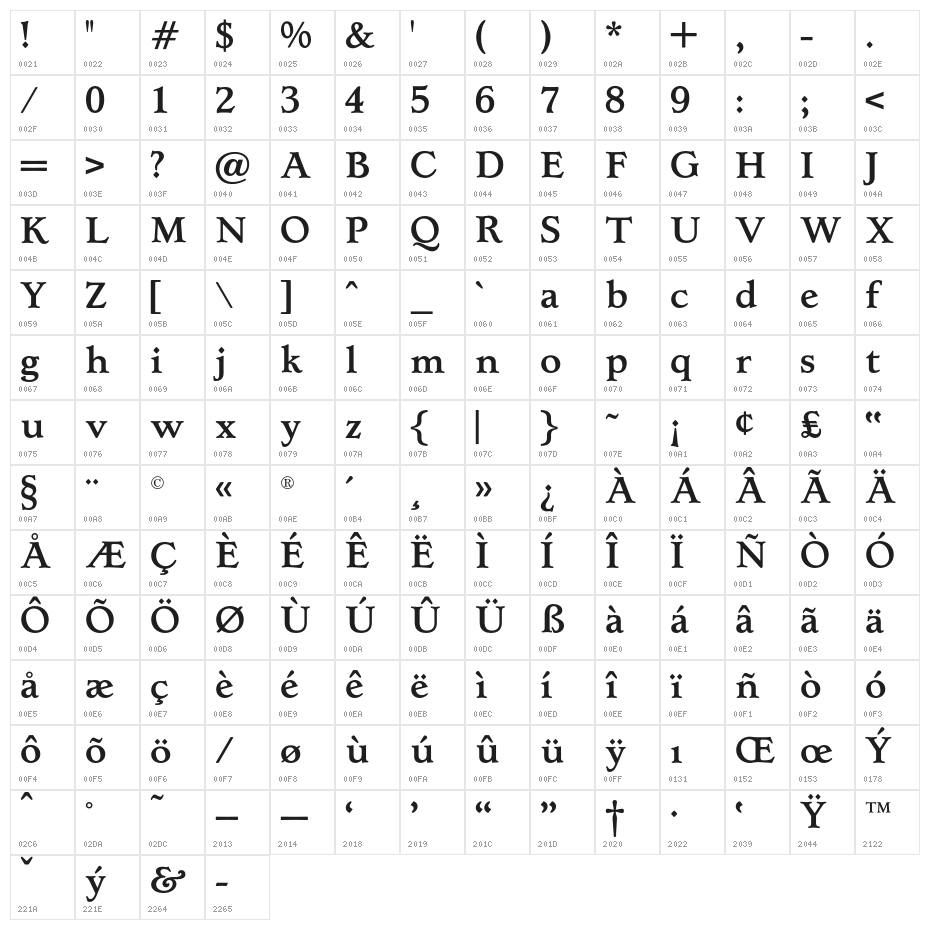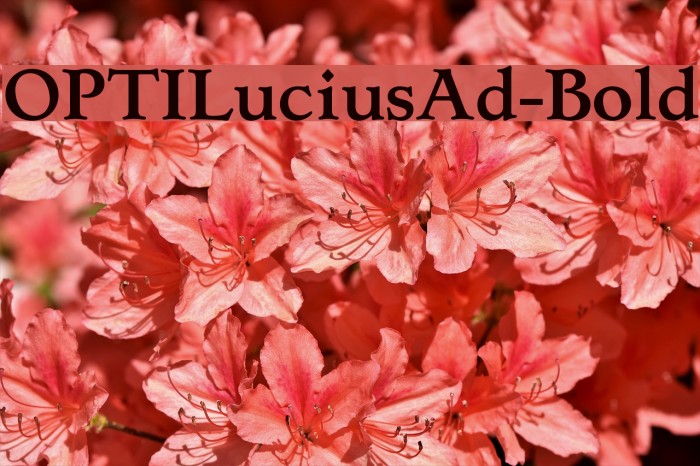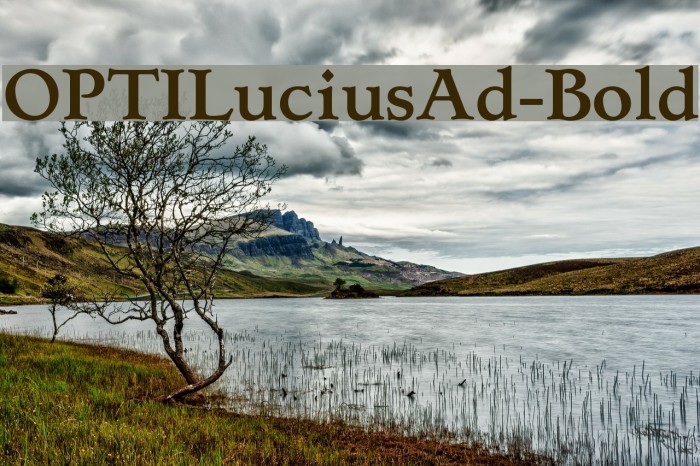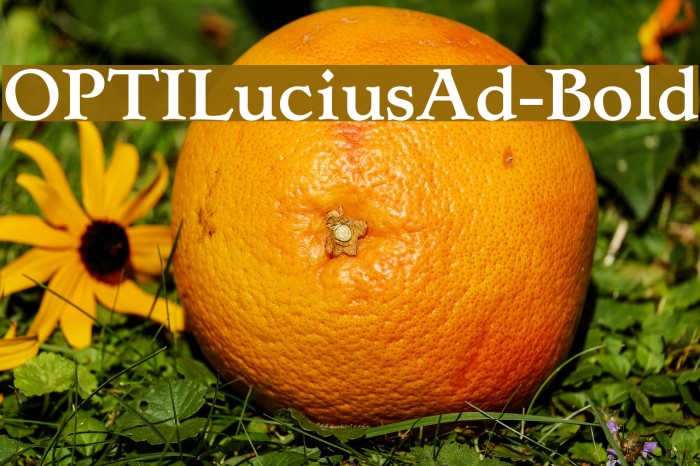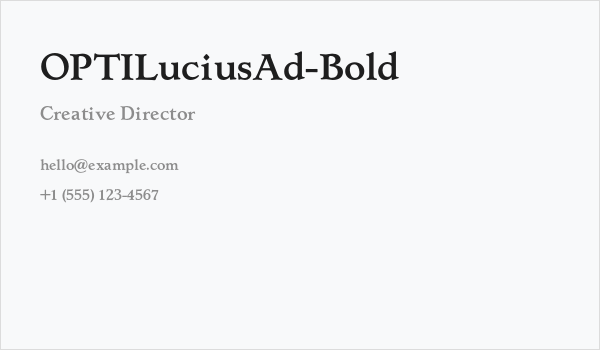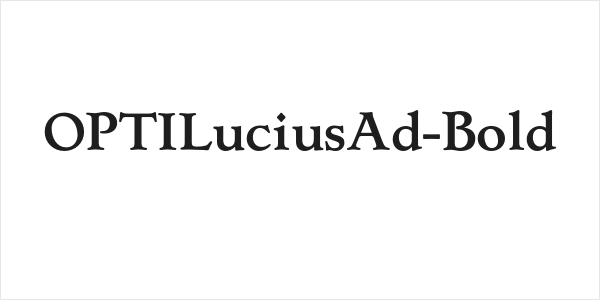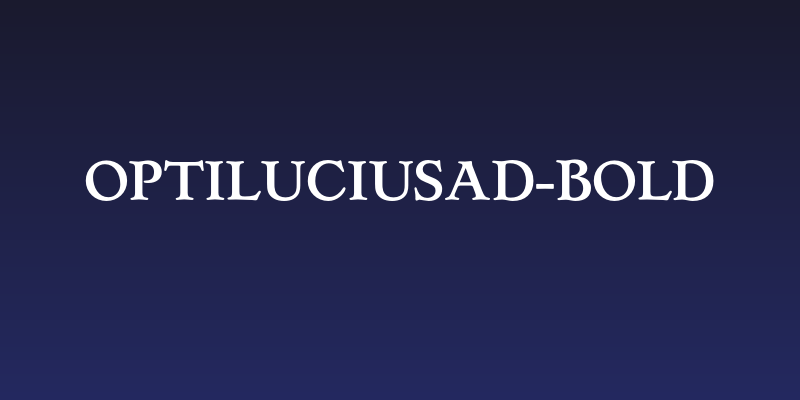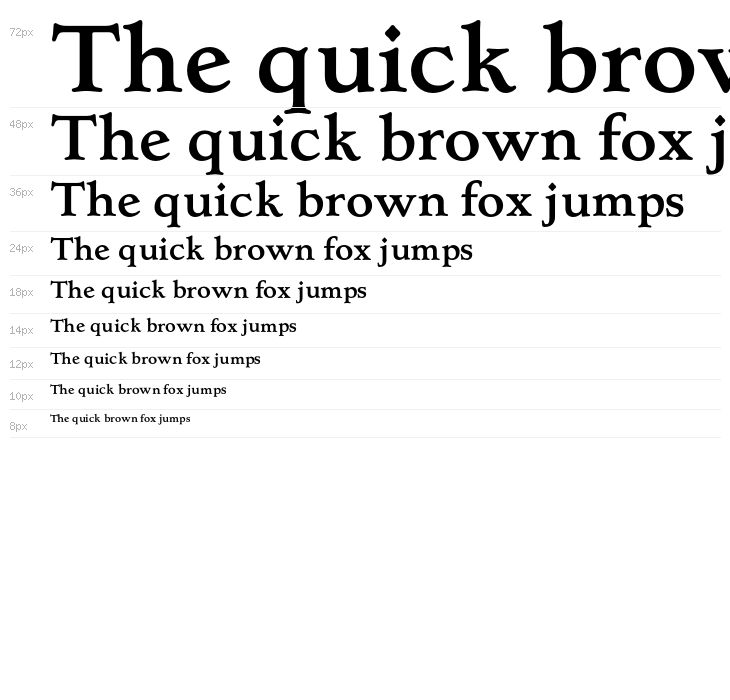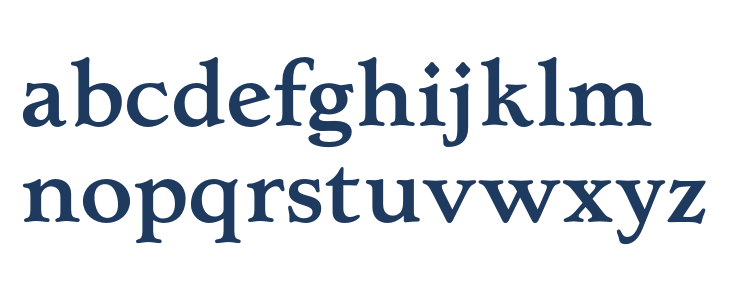
OPTILuciusAd-Bold Font
OPTILuciusAd-Bold Description
This font exhibits a classic serif style with pronounced, elegant serifs that give it a timeless and authoritative appearance. The uppercase letters are bold and commanding, while the lowercase letters maintain a consistent and harmonious flow. The numerals are well-proportioned, ensuring readability and balance. Special characters are designed with the same attention to detail, making them suitable for a variety of applications. The overall design is both traditional and versatile, making it ideal for formal documents, editorial design, and branding projects.
| Proposed Projects | Ideal for formal documents, editorial design, branding, and any project requiring a classic and authoritative typeface. |